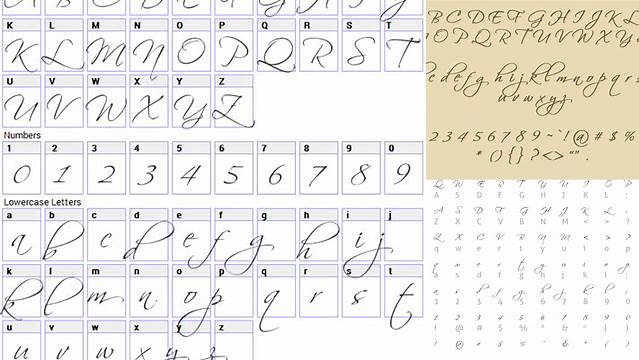
Are you looking for a Scriptina Regular font free download? Well, guys, you've landed in the right spot! This font is a total gem for adding a touch of elegance and flair to your projects. In this comprehensive guide, we'll dive deep into everything you need to know about Scriptina Regular, including where to snag it for free, how to use it, and why it’s such a fantastic choice for various design endeavors.
What is Scriptina Regular Font?
Let's kick things off with the basics. Scriptina Regular font is a beautifully crafted typeface that falls into the script font category. Imagine those classic, flowing handwritten styles – that’s the vibe Scriptina Regular brings to the table. It's known for its graceful curves, delicate strokes, and overall sophisticated appearance. The font is designed to mimic handwriting, making it perfect for projects that need a personal and stylish touch. Think wedding invitations, logos, branding materials, and even social media graphics.
The charm of Scriptina Regular lies in its versatility. It's not just another pretty font; it's a tool that can significantly enhance the aesthetic appeal of your designs. Whether you're aiming for a vintage feel or a modern, chic look, Scriptina Regular can adapt to fit your creative vision. Its flowing script and elegant letterforms make it a standout choice for projects where you want to convey sophistication and style.
The font's design is characterized by its connecting letters and elegant swashes, which create a sense of fluidity and movement. This makes Scriptina Regular particularly well-suited for headlines, titles, and other display purposes where you want to make a statement. It's also a great option for adding a touch of personality to shorter blocks of text, such as quotes or captions. The unique character of Scriptina Regular ensures that your designs will stand out and leave a lasting impression.